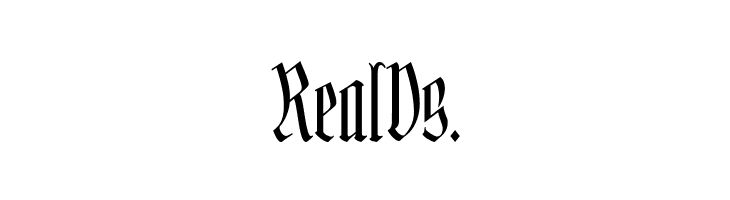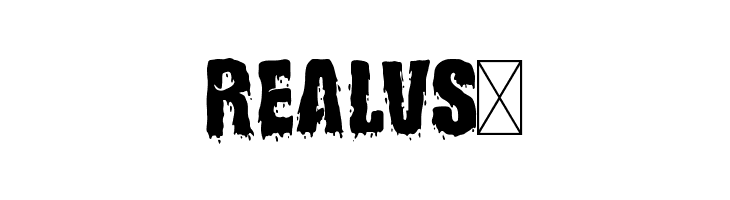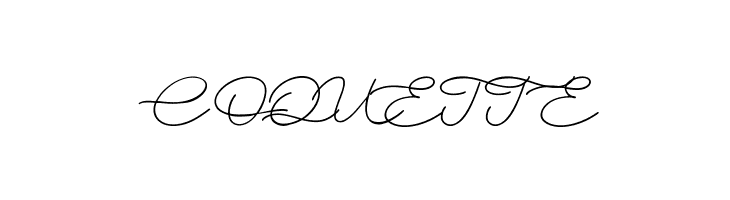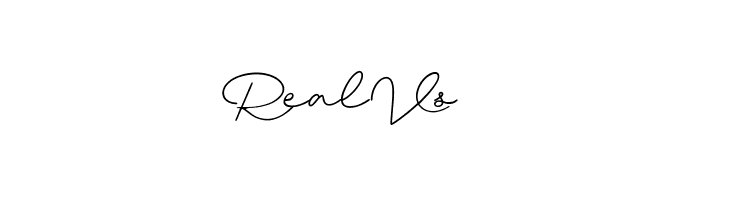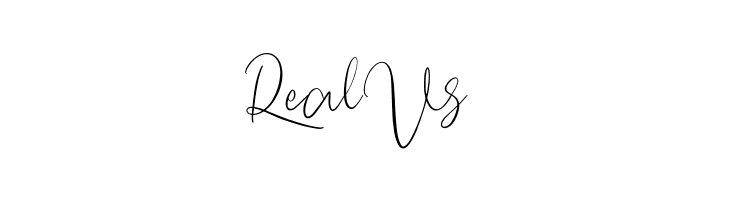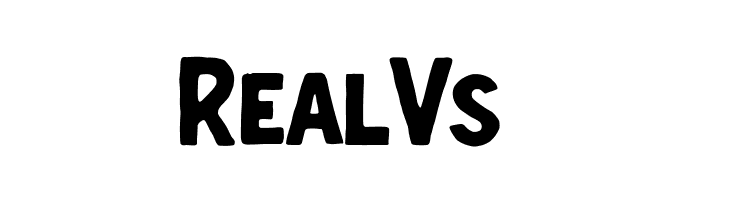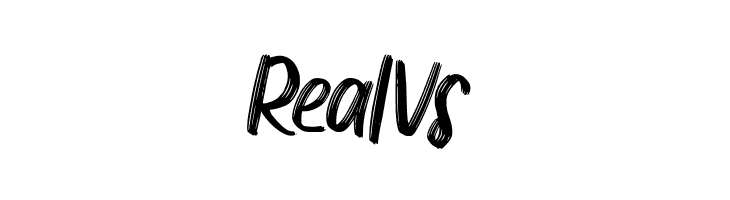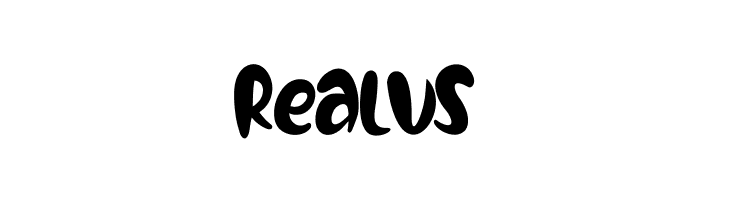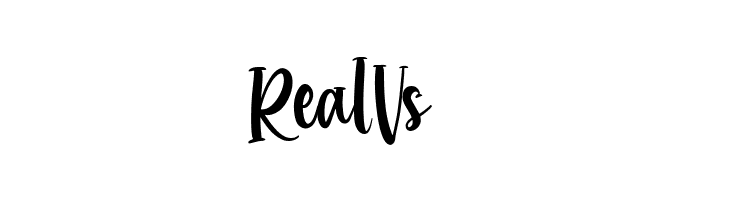
A bold, flowing script font with elegant, cursive letterforms.
Decorative illustrated font with Hindu religious and cultural motifs.
A modern, handwritten script font with a casual, elegant style.
A whimsical, hand-drawn font with irregular, playful strokes.
A playful, irregular handwritten font with dynamic strokes.
A playful, handwritten font with irregular, organic letterforms.
A playful, hand-drawn font with bold, rounded strokes and a whimsical style.
A bold, geometric font with a modern, tech-inspired design.
A rugged, distressed font with a bold, hand-drawn appearance.
A smooth, rounded Hiragana script font with a modern yet traditional feel.
A bold, geometric font with a futuristic, digital aesthetic.
A playful handwritten font with a casual and friendly style.
A cartoon illustration-based decorative font with a festive, cultural theme.
Cartoonish, illustrative font themed around Hispanic and Spanish culture.
A dynamic handwritten font with fluid, expressive strokes.
Ornate, illustrative font using vintage medical and anatomical artwork.
Illustrative silhouette font featuring historic moments and inventions.
Hand-drawn, character-based decorative font inspired by historic figures.
An elegant script font with high contrast and flowing, cursive style.
A bold, elegant script font with flowing curves and dynamic strokes.
A bold, decorative font with intertwined uppercase letters and elegant curves.
An elegant, vertically emphasized font with a classic calligraphic style.
A bold, expressive handwritten font with fluid strokes and dynamic movement.
A bold, expressive handwritten font with a graffiti-like style.
A bold, brush-style font with dynamic, handwritten characteristics.